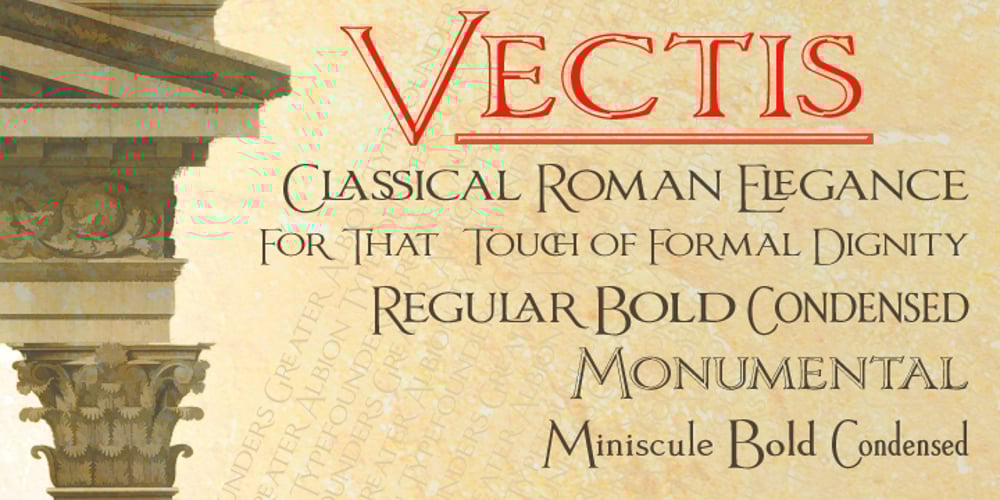
Vectis Font Family was designed by Paul James Lloyd and published by Greater Albion Typefounders. Vectis contains 7 styles and family package options. Vectis, named in honor of the Roman settlement of Britain’s south coast on the Isle of Wight, brings a fresh approach to the classic simple elegance of ancient Roman faces. Vectis is offered as a small caps face designed to add a fresh hint of character to this style of classical design. Vectis can lend a note of formal dignity to any design project or poster and is ideal for clear headings and titles with a traditional feel. Two basic weights are offered, regular and bold, as well as a range of alternate letterforms and ligatures. This popular family has now been expanded with the incised ‘Monumental’ display face, and well as ‘miniscule’ lower case forms and condensed widths. Vectis and our Anavio families compliment each other perfectly, and can also be purchased together in a value pack.